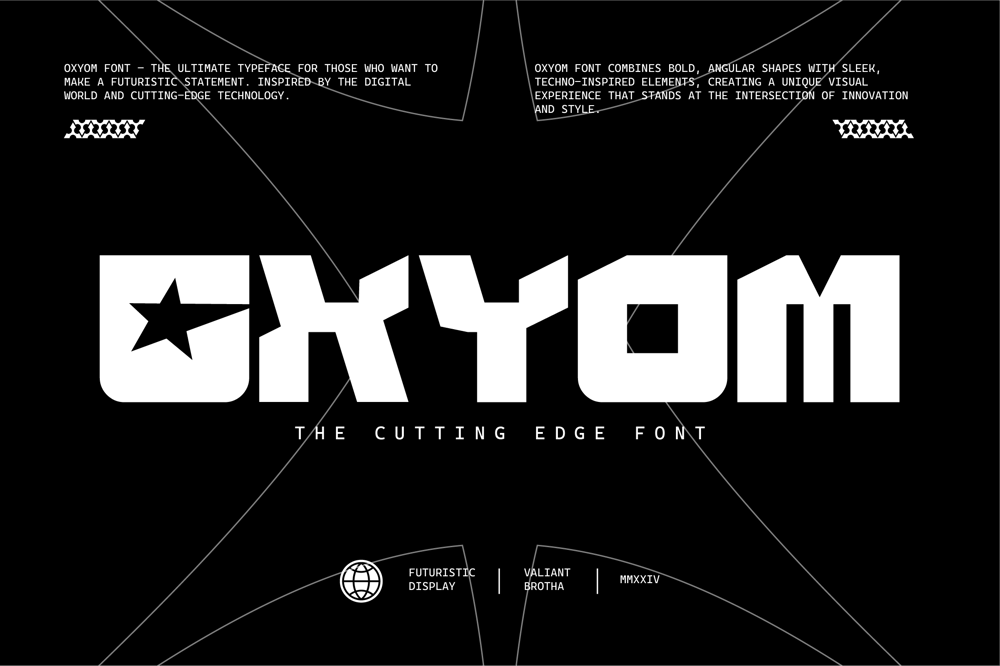
Oxyom Font Family was designed by Agus Prima and published by Valiantbrotha. Oxyom contains 1 styles and family package options. Oxyom Font – the ultimate typeface for those who want to make a futuristic statement. Inspired by the digital world and cutting-edge technology, Oxyom Font combines bold, angular shapes with sleek, techno-inspired elements, creating a unique visual experience that stands at the intersection of innovation and style.